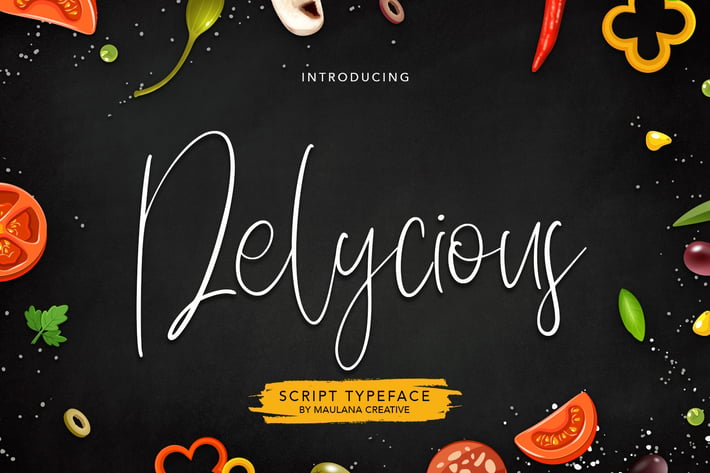
Delycious Script Restaurant Typeface
Give your designs an authentic handcrafted feel. “ Delycious” is perfectly suited to stationery, logos and much more.
- Include Ligatures